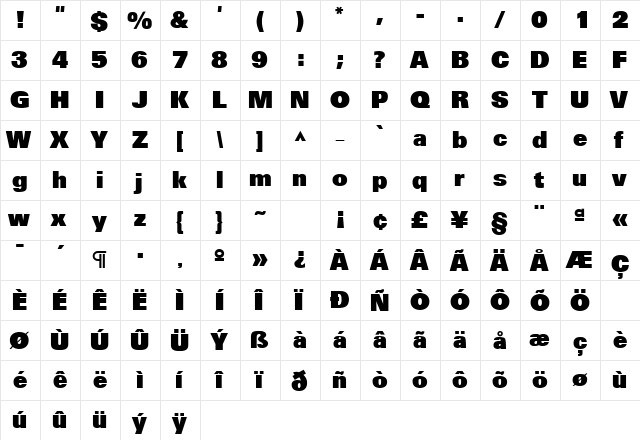
Unpact Regular
Design Context for Unpact Typeface
Unpact takes a measured approach to typography — its balanced proportions and neutral character make it a reliable workhorse for both digital and print work.